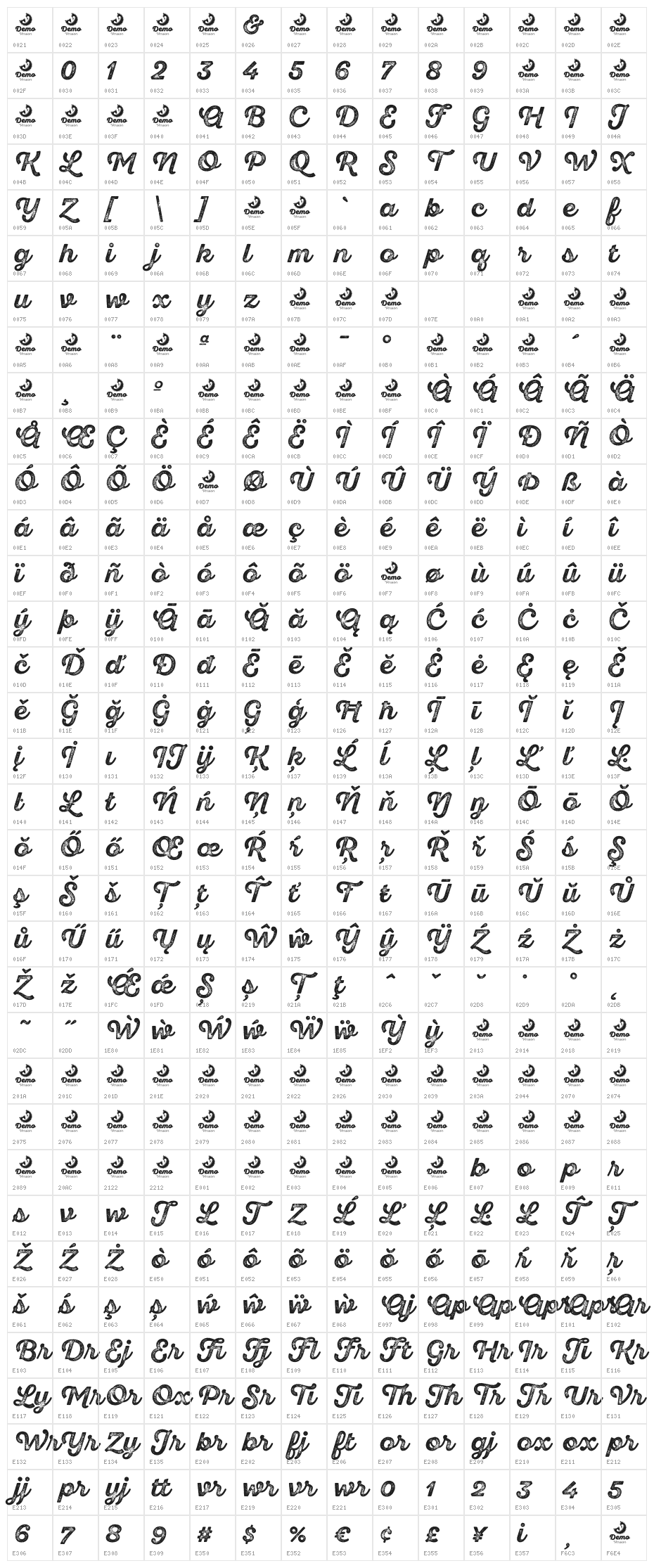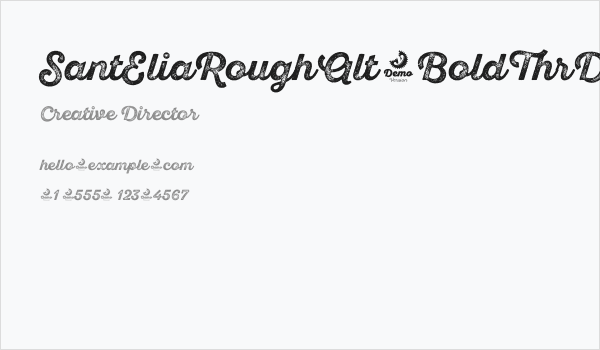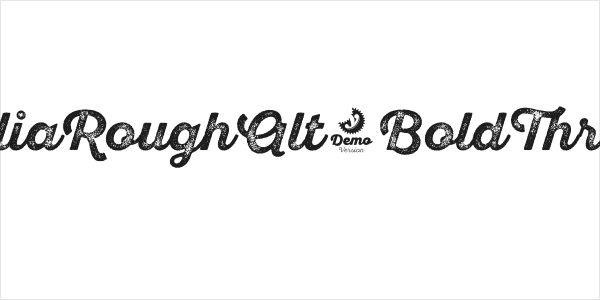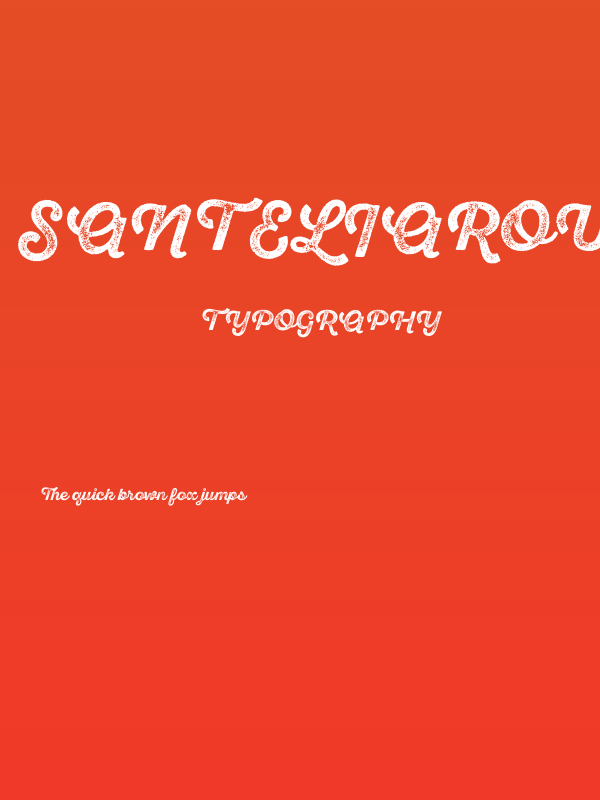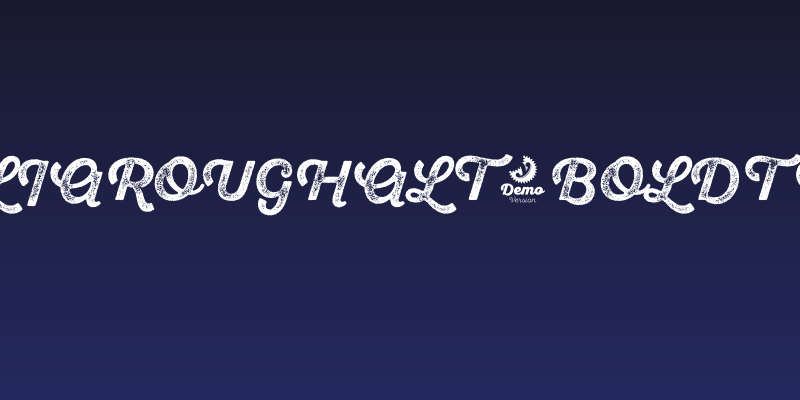
SantEliaRoughAlt-BoldThrDMO Font
SantEliaRoughAlt-BoldThrDMO Description
This font features a bold, textured script style with a rough, distressed appearance. The characters are connected, giving it a flowing, cursive look. The uppercase letters are slightly larger and more pronounced, while the lowercase letters maintain a consistent style. Numbers and special characters share the same textured, bold design, making them stand out. The font's unique texture gives it a vintage, handcrafted feel, suitable for projects that require a touch of rustic charm.
| Proposed Projects | Ideal for branding, packaging, posters, and invitations where a vintage or handcrafted look is desired. |